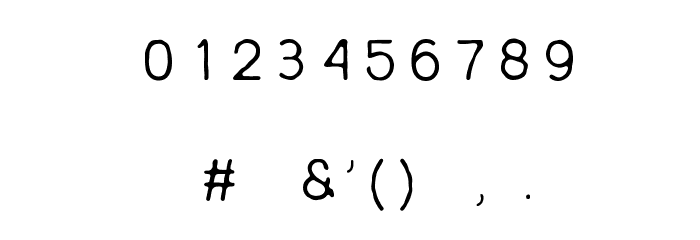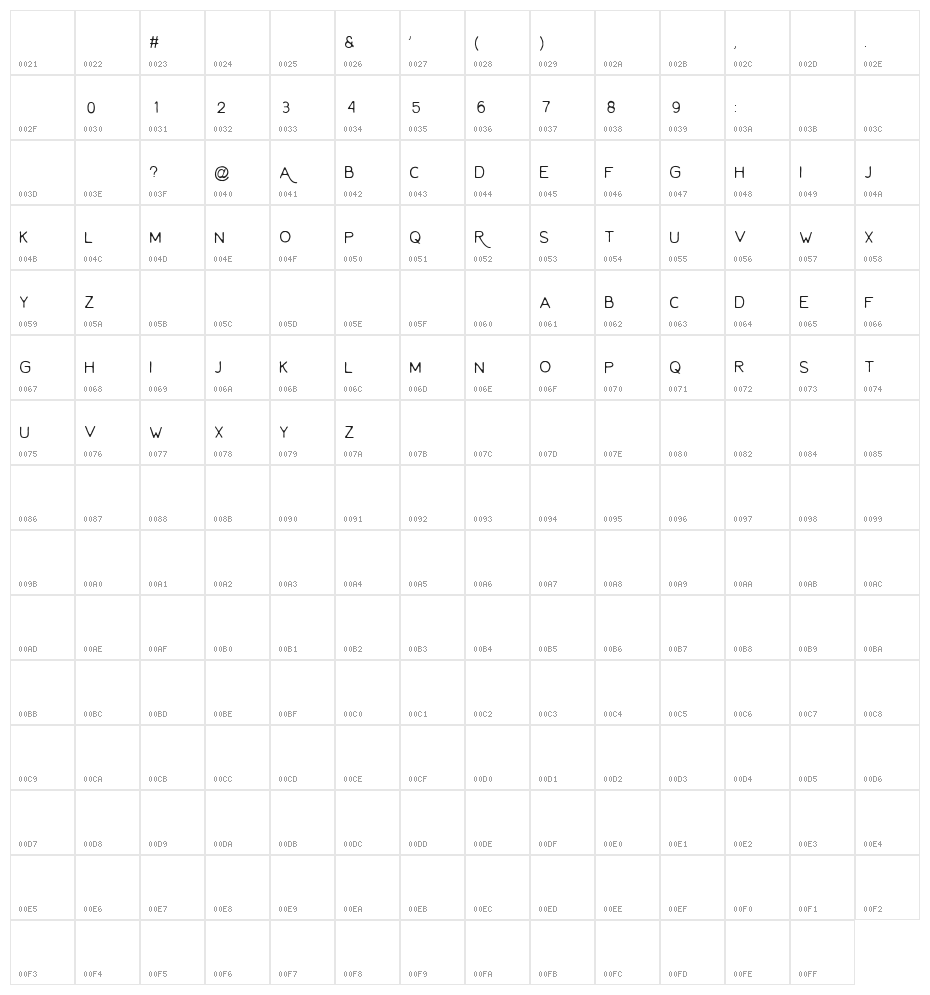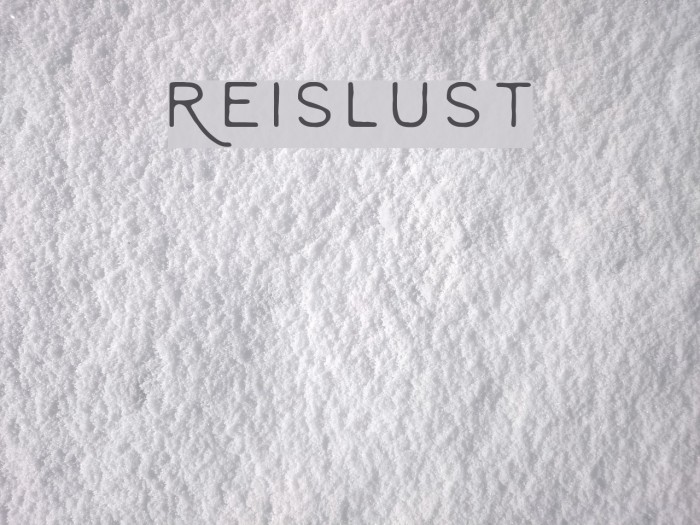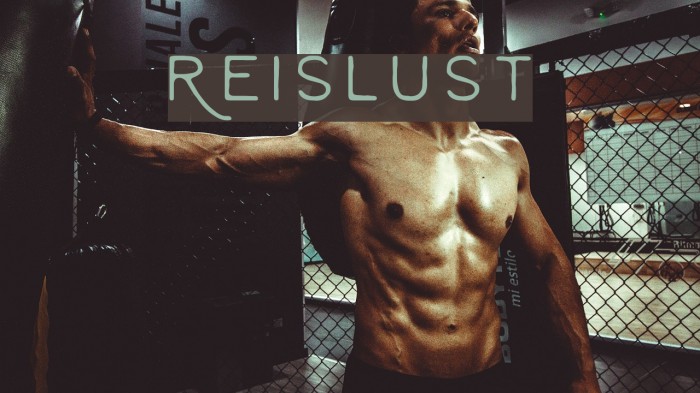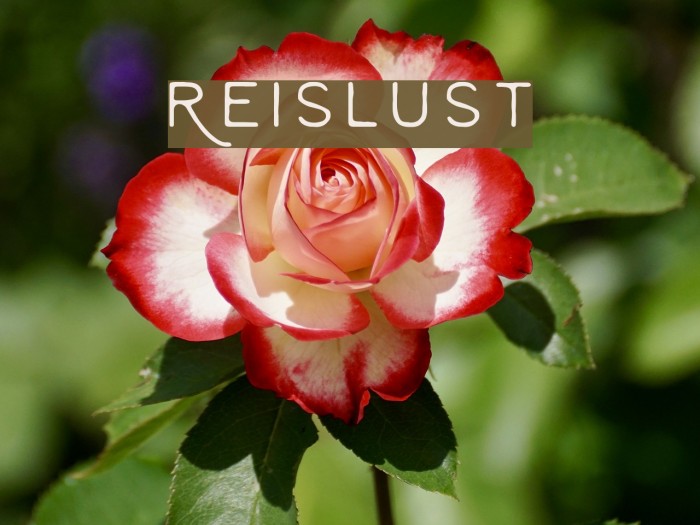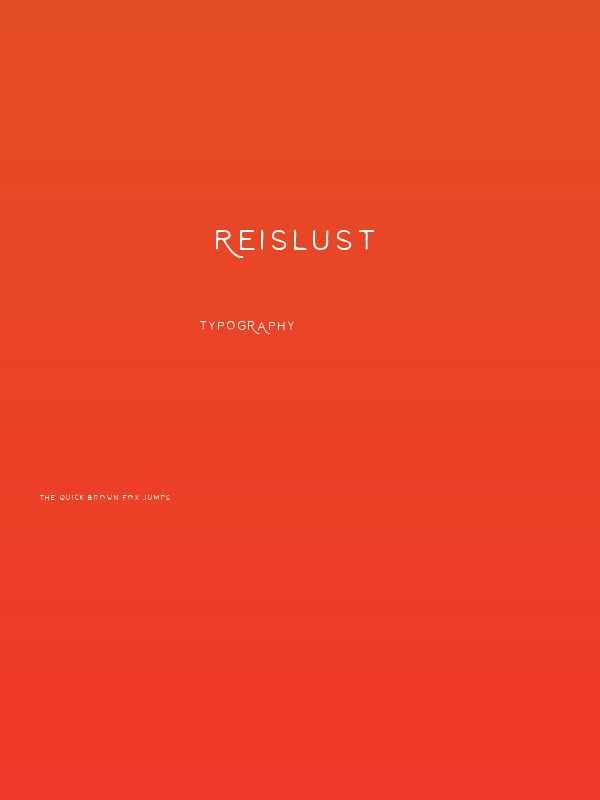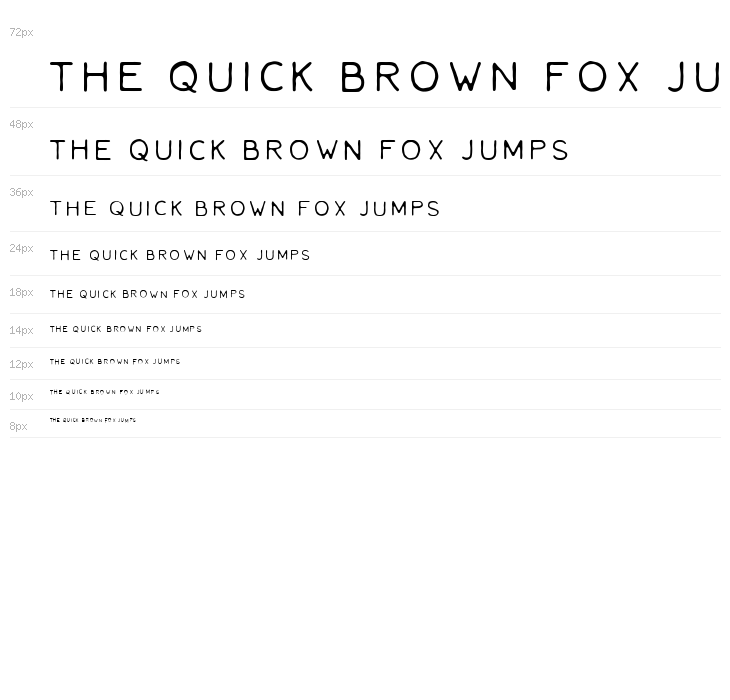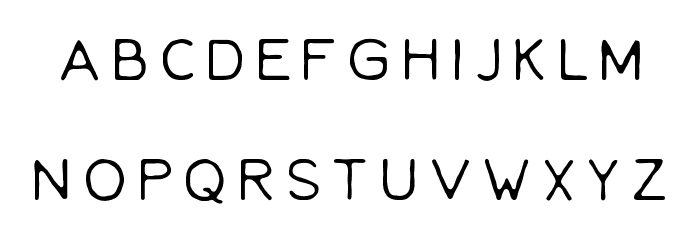
Reislust Font
Reislust Description
This font features a playful and slightly whimsical design with a handwritten feel. The characters are crafted with a unique flair, particularly noticeable in the curved strokes of letters like 'A' and 'Q'. The overall appearance is casual yet stylish, making it suitable for projects that require a personal touch. The numerals and special characters maintain the same playful style, ensuring consistency across all text elements. The font's design is clean and legible, with a modern twist that adds character without compromising readability.
| Proposed Projects | Ideal for greeting cards, invitations, personal branding, and creative projects that benefit from a personal touch. |